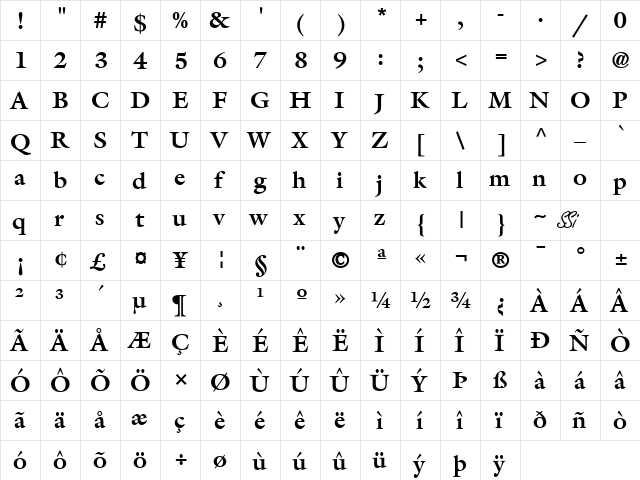
Acanthus SSi Bold
Design Context for Acanthus SSi Typeface
Acanthus SSi is a composed and adaptable typeface that performs quietly and consistently across a wide range of design contexts. Its bold stroke weight gives it real presence on the page.
Pro Tip: Use Acanthus SSi in both headline and body roles to test its range before committing to a single application.